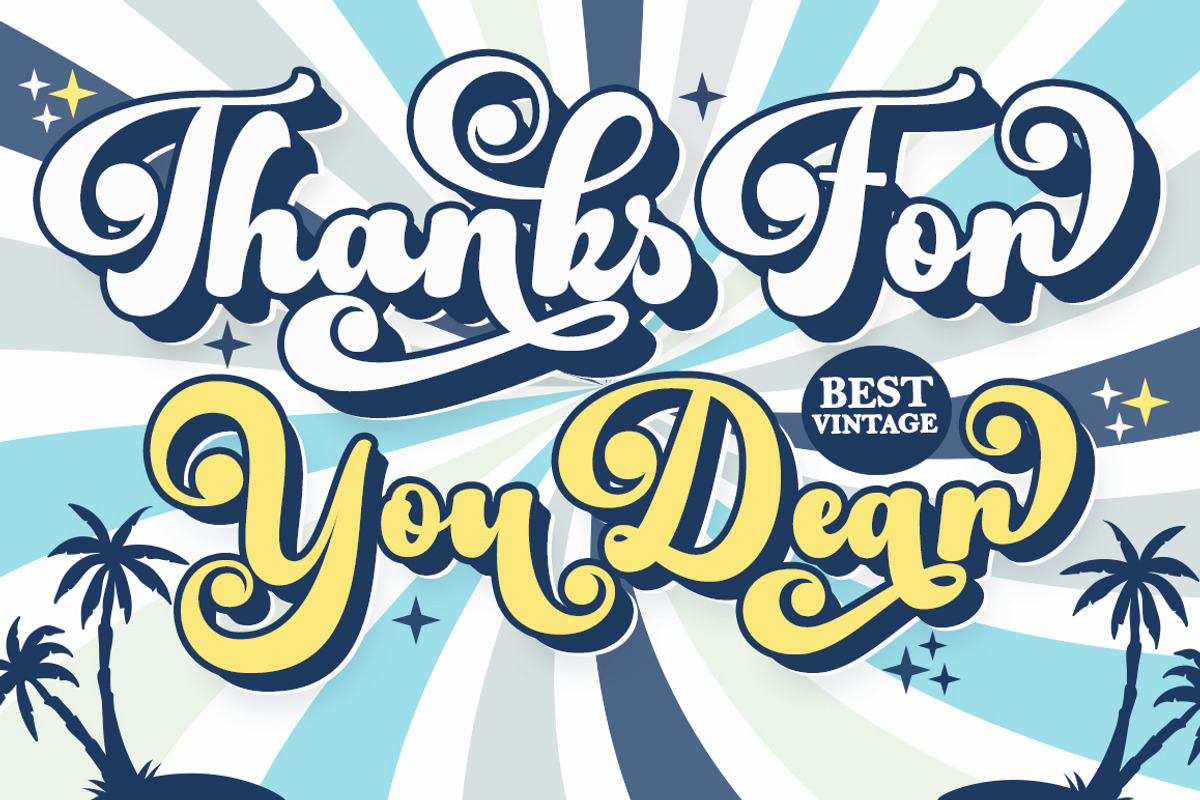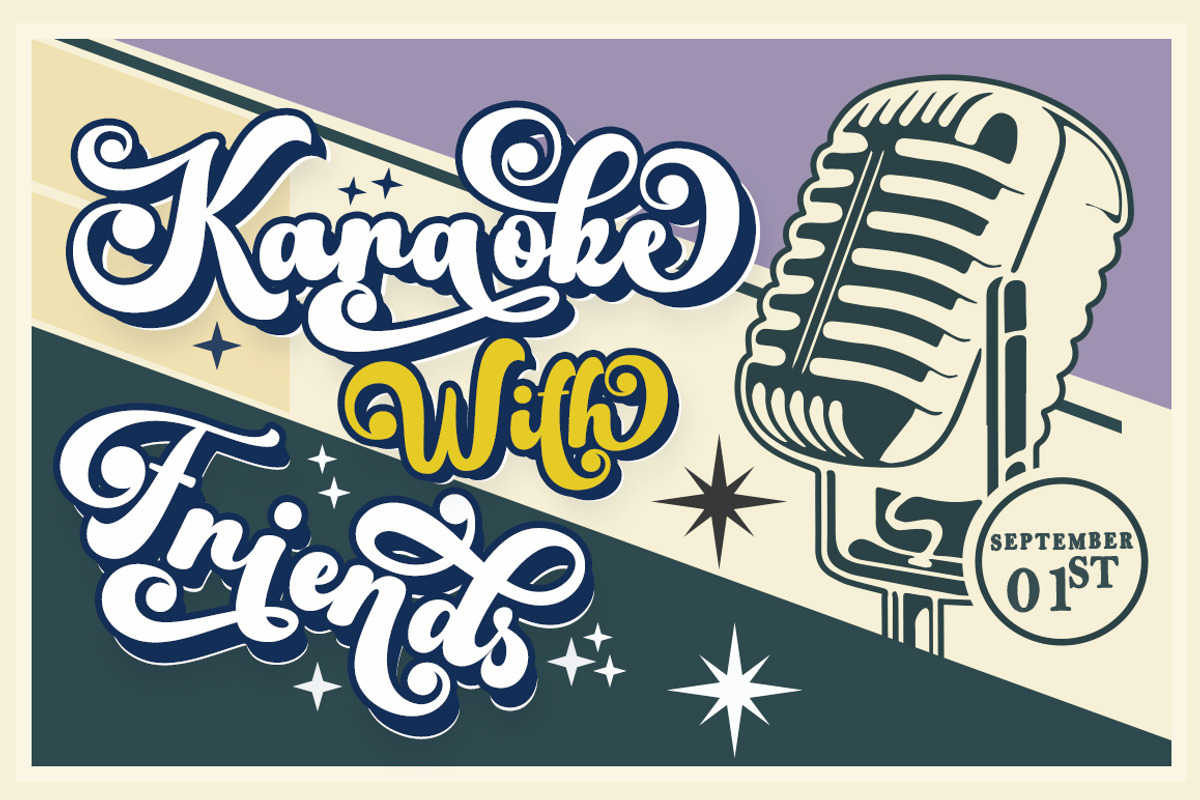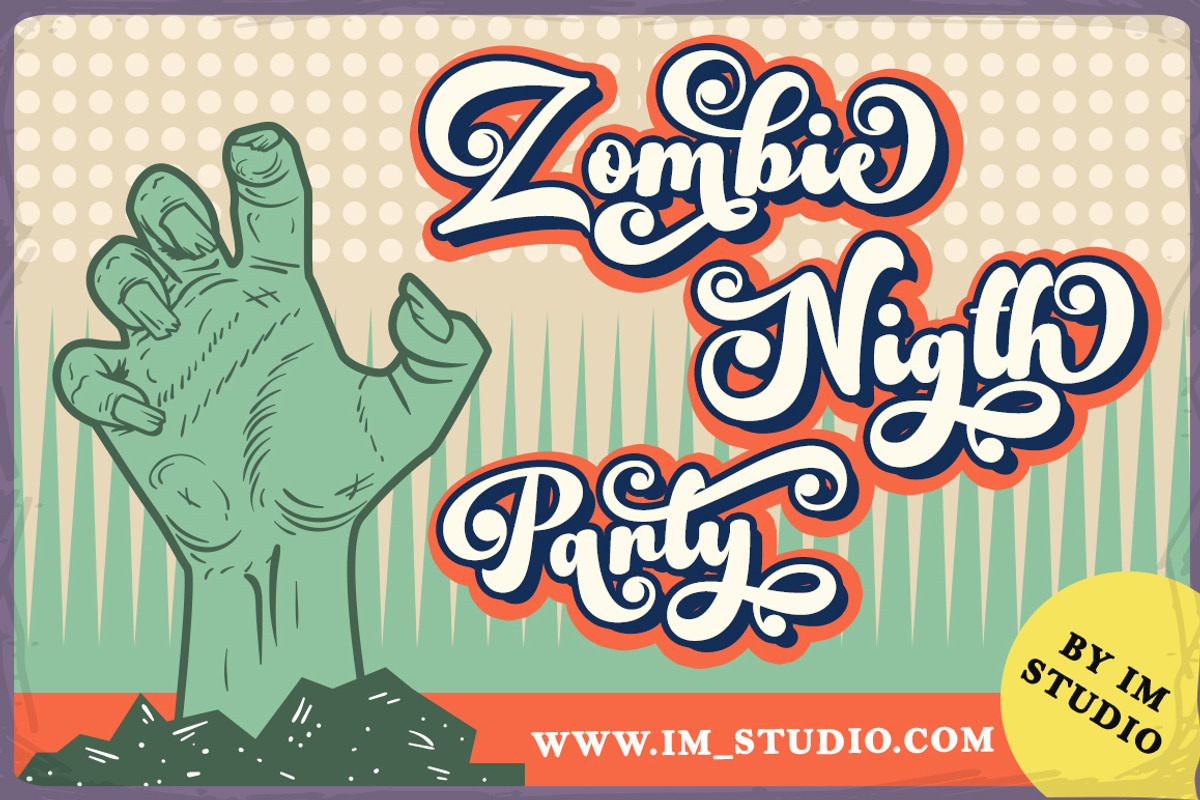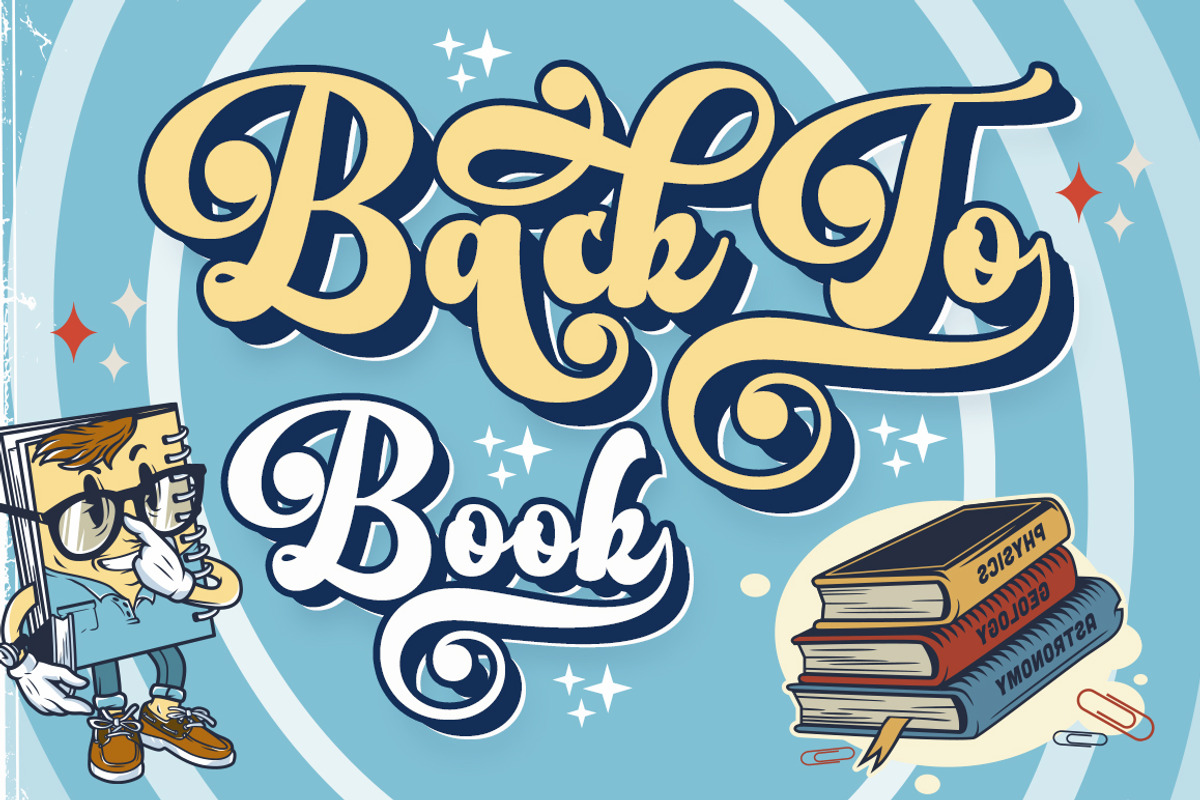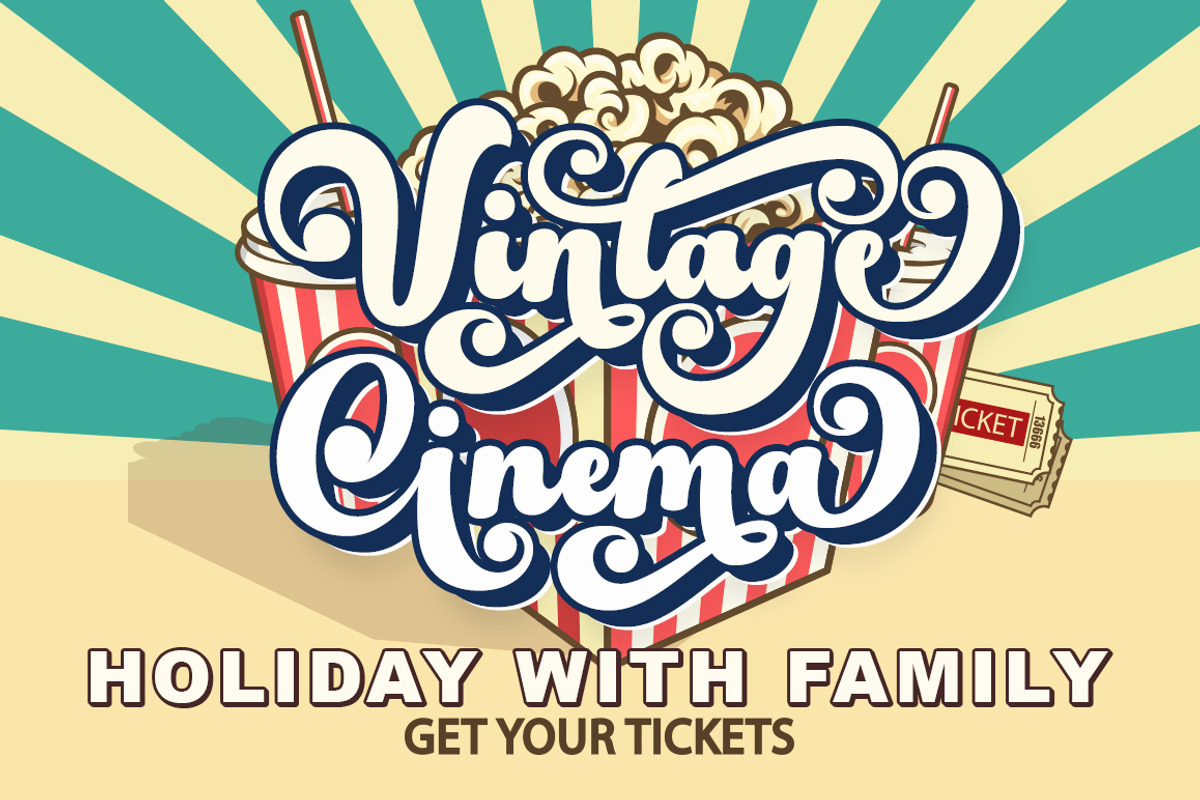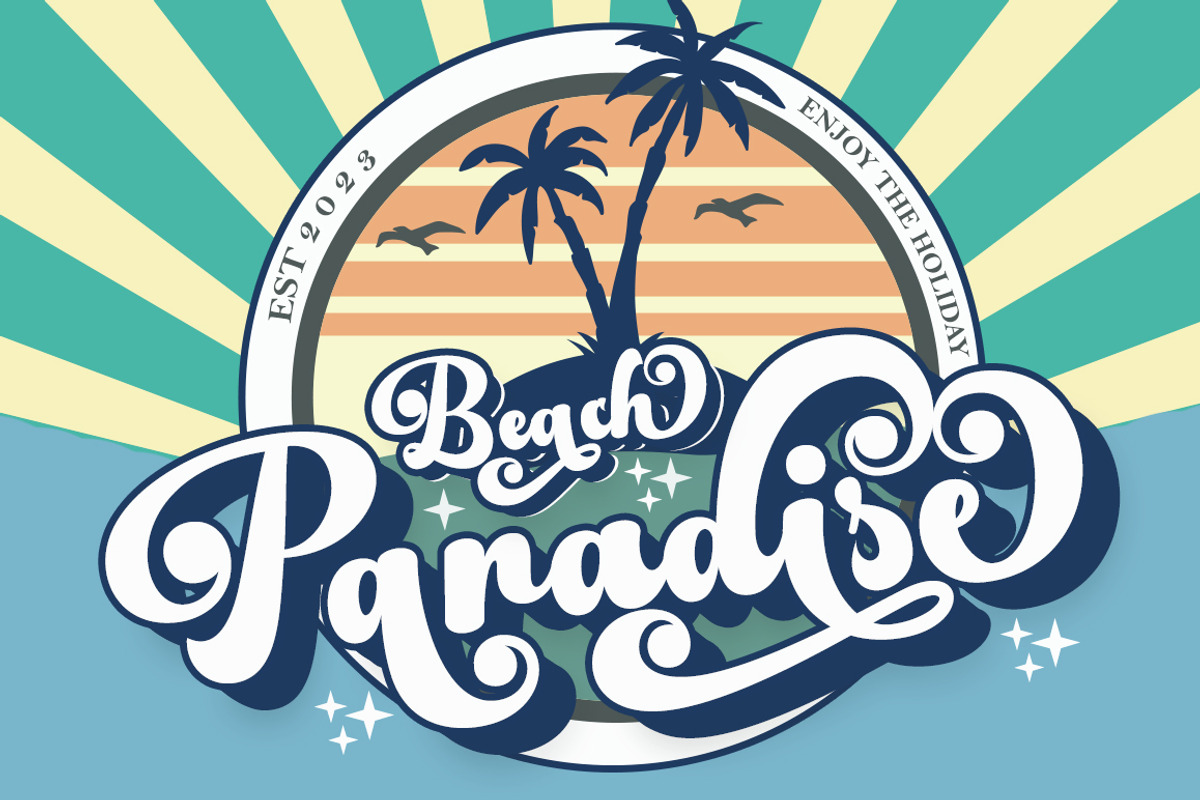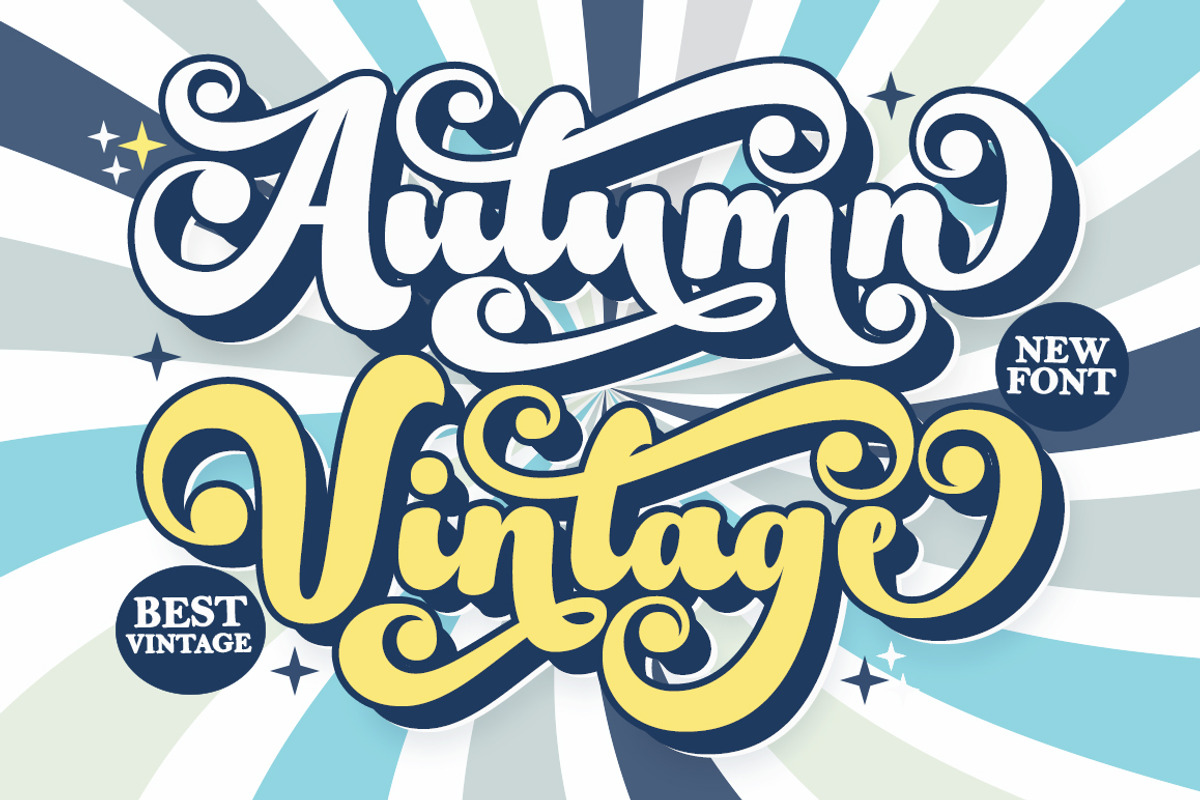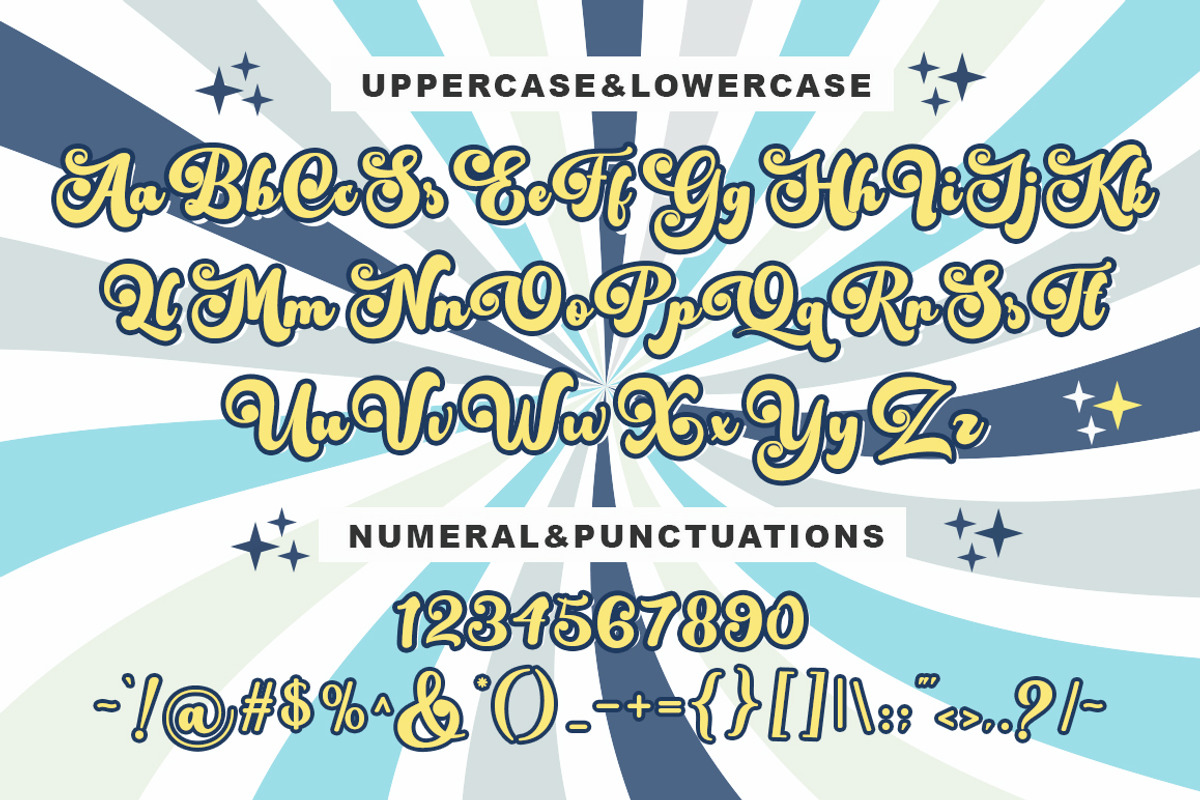
Autumn Vintage
Autumn Vintage Inspired Retro Style and mixed with Hand Lettering style. Autumn Vintage has lots of alternative swashes & ligatures and has open type features like alternate styles, style sets, ligatures and swashes so you can mix and match however you like. Autumn Vintage comes with open type features such as style alternatives, style sets & binders suitable for all types of logos, posters, badges, book covers, t-shirt designs, handwritten quotes, product packaging, headers, posters, merchandise, social media & greeting cards .